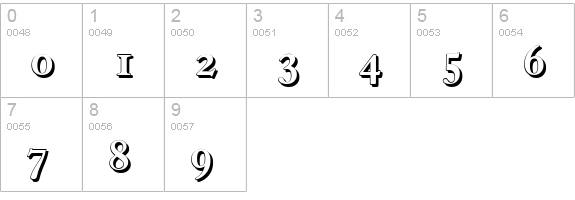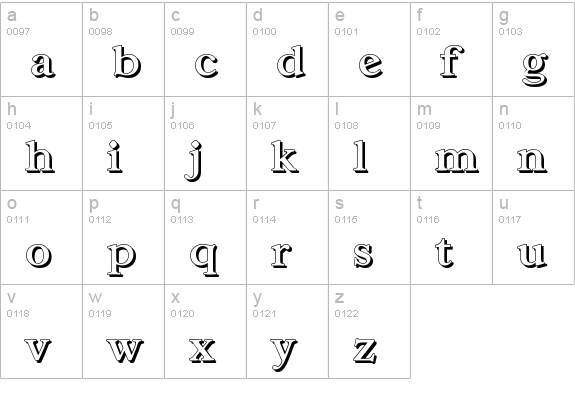
CasablancaShadow-Medium-Regular Font Details
CasablancaShadow-Medium-Regular is a balanced, medium-weight variant in the CasablancaShadow typeface family \xE2\x80\x94 well suited to sub-headlines, navigation, and balanced editorial work.